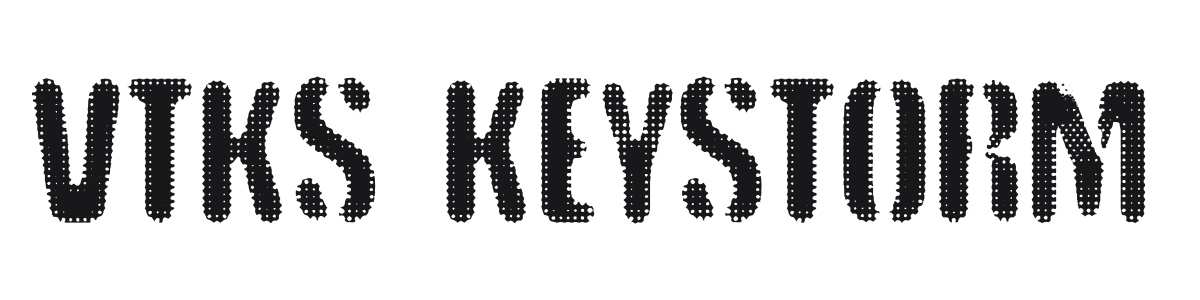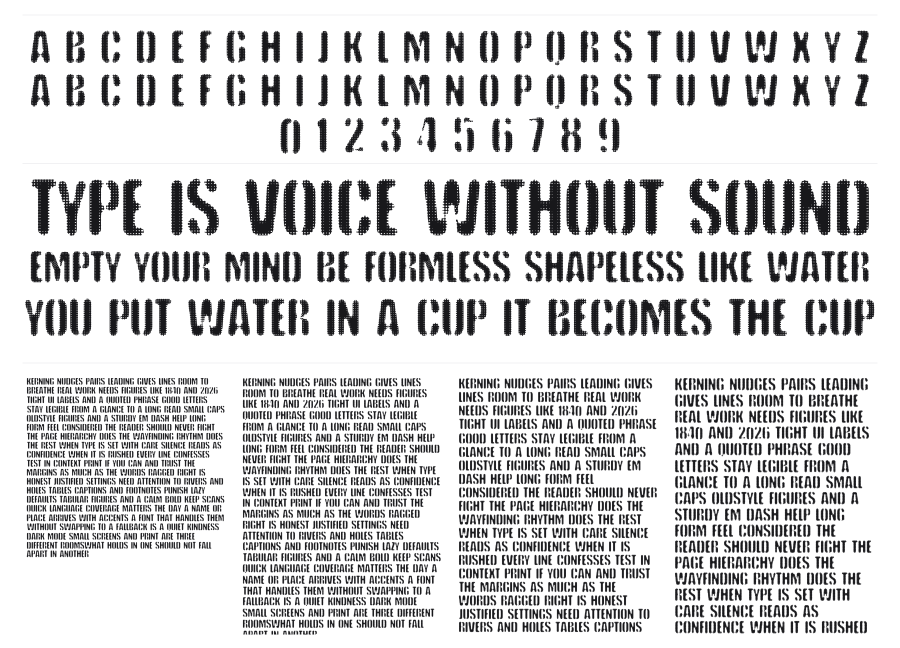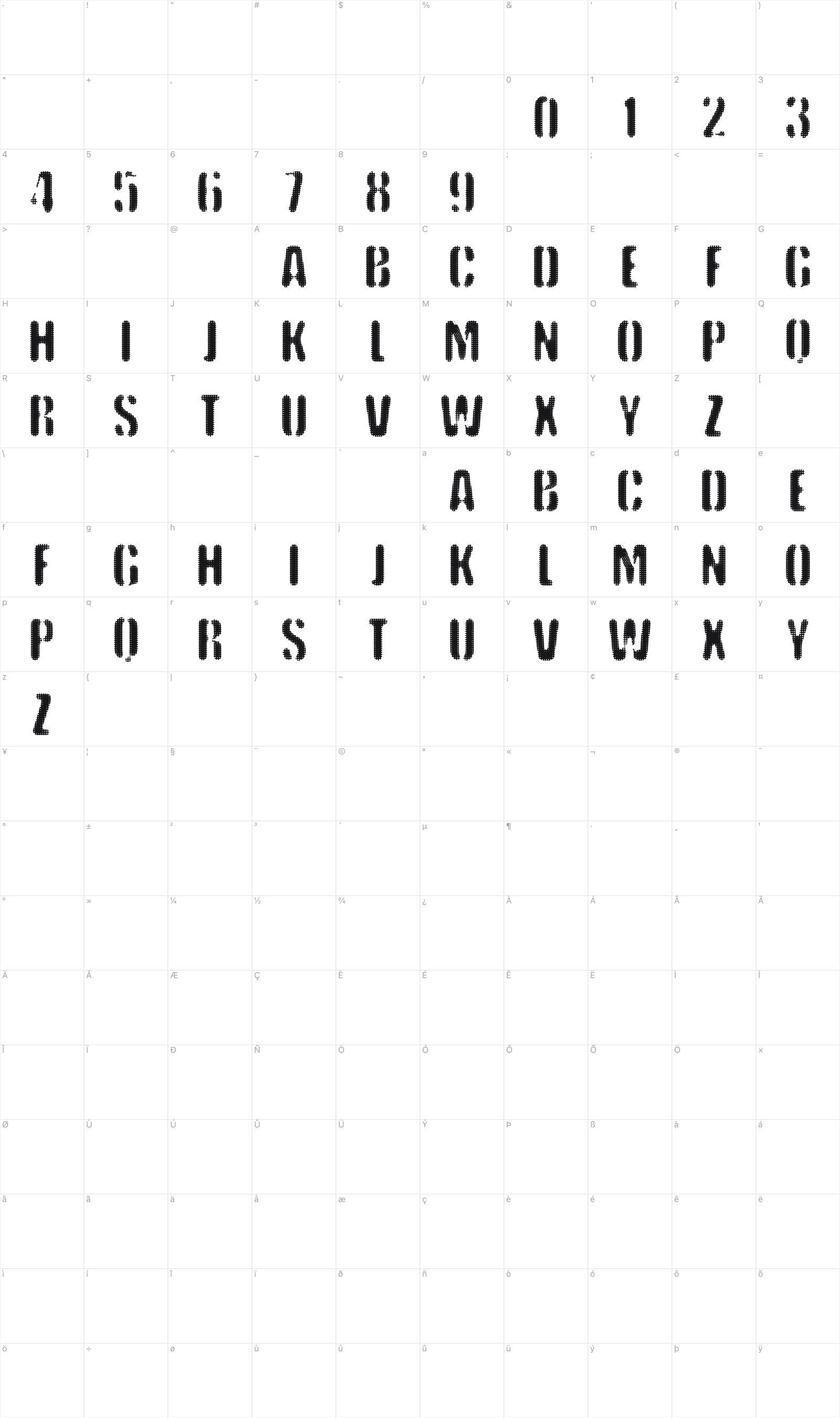
VTKS Keystorm
VTKS Keystorm is a heavy condensed display font where every stroke is consumed by a dense dot or mesh texture, giving it a raw, eroded intensity. The squared forms and bold weight read clearly as headline type, but the perforated surface finish keeps it firmly in distressed territory. It carries the energy of concert posters, metal album art, or action-sports branding.